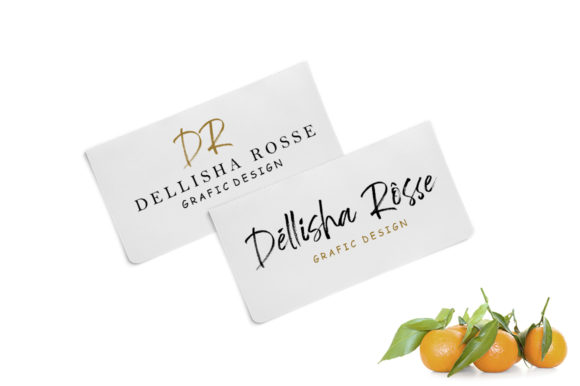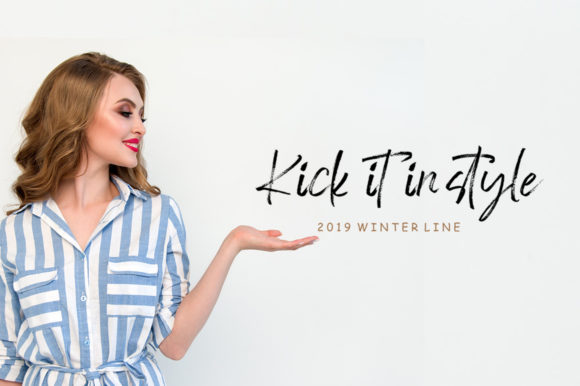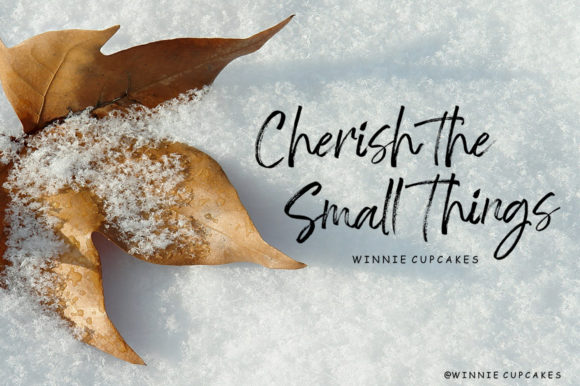
Introduction to Hello Freshtea Font
Hello Freshtea is an incredibly fresh and dynamic script that features a contemporary approach to design.
Get inspired by its playful vibe .
Key Features of Hello Freshtea Font
Why Choose Hello Freshtea Font?